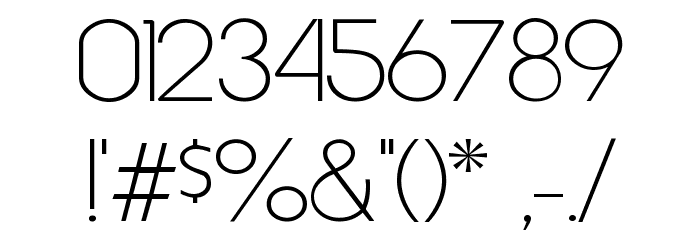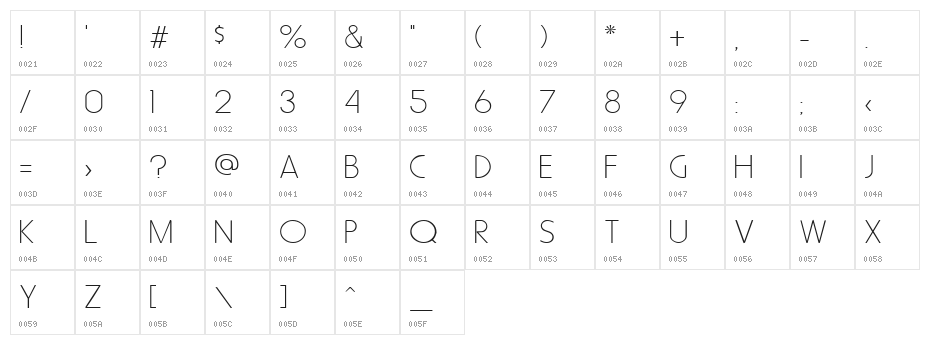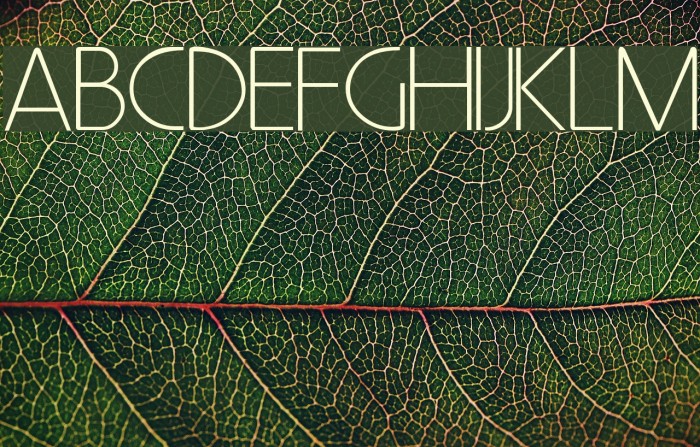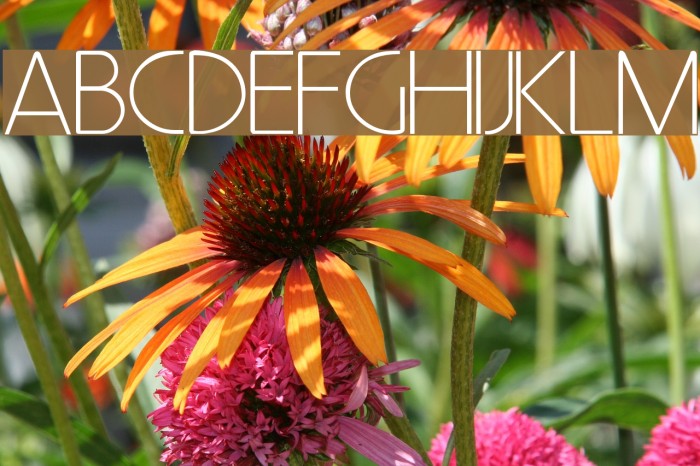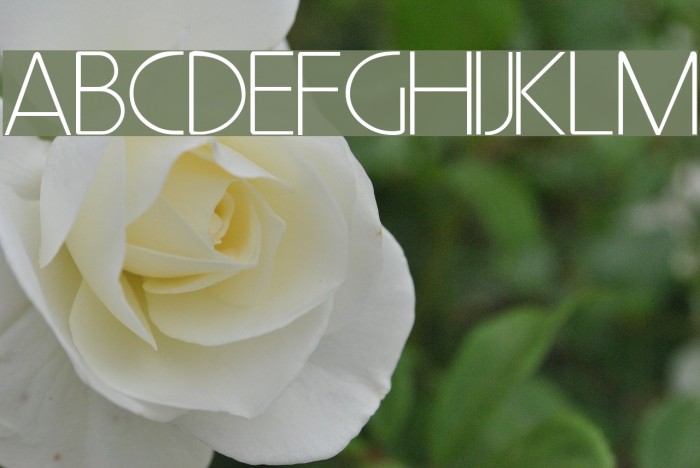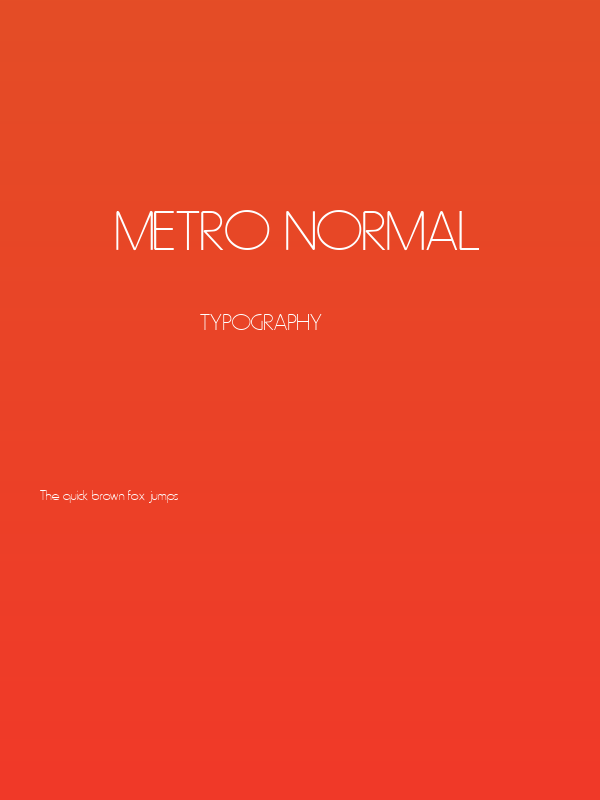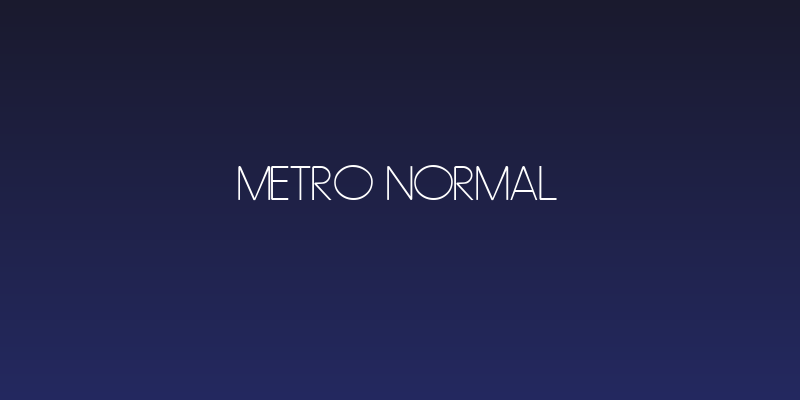
Metro Normal Font
Metro Normal Description
This font exhibits a clean, geometric sans-serif style with a modern aesthetic. The characters are constructed with consistent stroke widths, giving it a uniform appearance. The uppercase letters are tall and elegant, while the lowercase letters maintain a balanced and harmonious look. The numerals are straightforward and align well with the overall design. Special characters are crafted with the same attention to detail, ensuring they complement the alphabetic characters seamlessly. This font's simplicity and clarity make it highly versatile for various design applications.